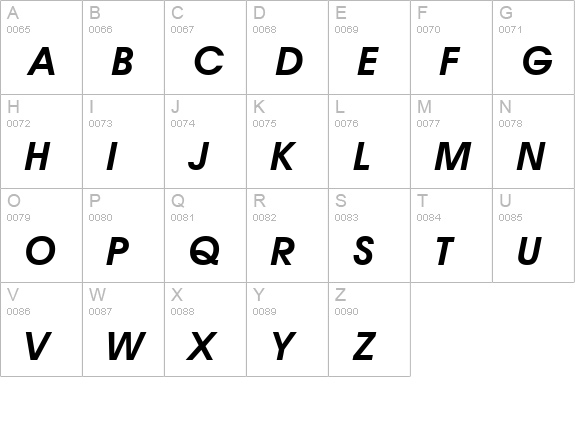
Avant Garde Demi Oblique BT Font Details
Avant Garde Demi Oblique BT is a sub-bold, structured, italic variant in the Avant typeface family \xE2\x80\x94 well suited to sub-headlines and emphasised passages.
Avant Garde Demi Oblique BT font is a bold and unique typeface that exudes modernity and sophistication. Its avant-garde design features slanted characters that add a sense of movement and dynamism to any text. With its sleek lines and stylish appearance, this font is perfect for creating eye-catching headers, titles, and logos. What makes Avant Garde Demi Oblique BT font even more appealing is that it is available for free download at FontsMarket.com. This means that you can easily enhance your design projects with this striking font without any cost involved. Whether you're working on branding materials, posters, or web graphics, Avant Garde Demi Oblique BT font is sure to make a bold statement and elevate your design to the next level. Download it today and unleash your creativity with this stunning typeface.